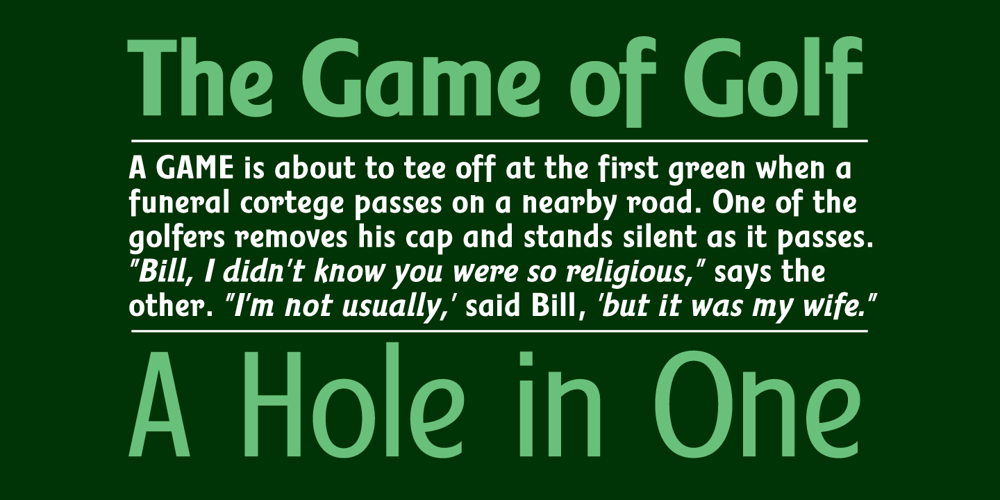
Fairway Font Family was designed by Alan Meeks and published by Alan Meeks. Fairway contains 7 styles and family package options. The thinking behind Fairway was to create a relatively conventional soft sans with a certain amount of movement at the top of the x-height line. The face is casual and quirky but can still be used as a text face.